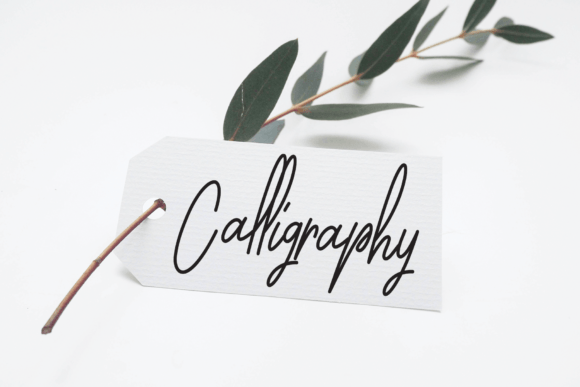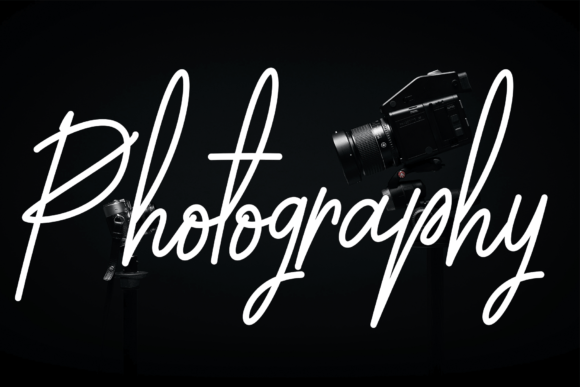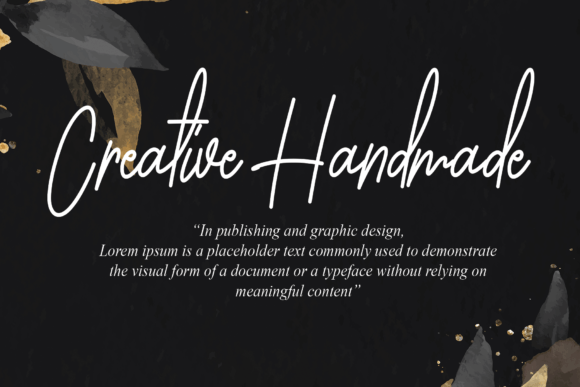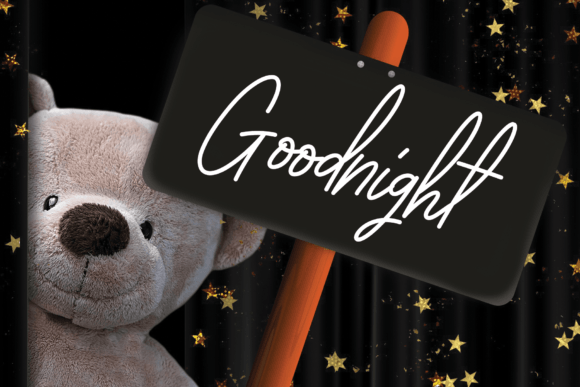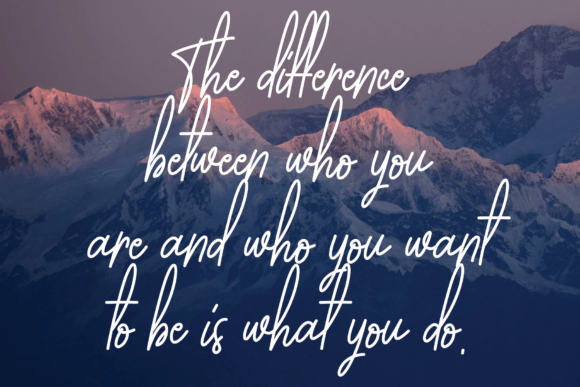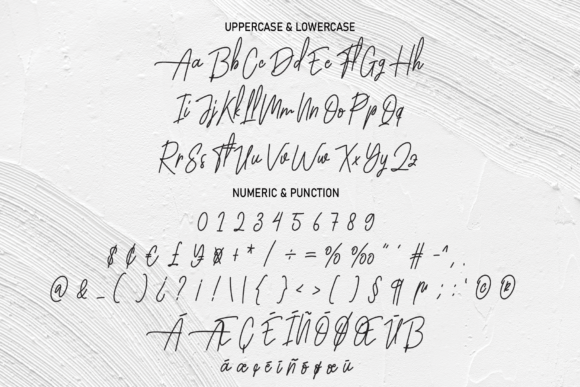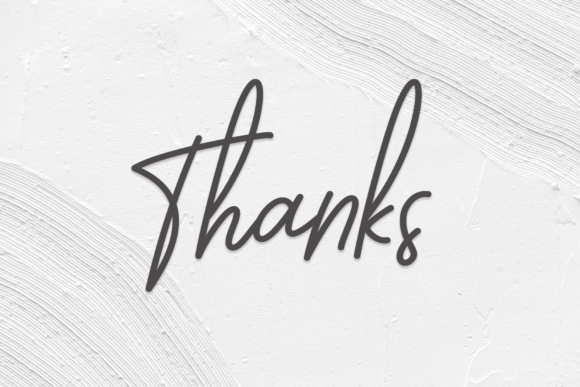
Juneteenth Font
About Juneteenth Font
“Juneteenth” is a truly dazzling script font, meticulously crafted with intricate details that make it stand out in any design project. Its elegance and sophistication make it a valuable addition to your font library, capable of enhancing a wide range of creations, regardless of the topic or context.
What sets “Juneteenth” apart is its exquisite design. Every curve and stroke is carefully crafted, reflecting a high level of attention to detail. Whether you’re designing invitations, branding materials, or digital graphics, this font adds a touch of sophistication and charm to your work. Its flowing script style exudes a sense of creativity and artistry, making it a perfect choice for projects that require a blend of professionalism and beauty.
The versatility of “Juneteenth” is one of its key strengths. It adapts seamlessly to various themes and moods, making it suitable for both formal and informal occasions. Whether you’re working on a corporate presentation or a wedding invitation, this font effortlessly complements the tone of your project. Its legibility ensures clear communication while its stylish appearance elevates the overall visual appeal.
Adding “Juneteenth” to your font library opens up a world of creative possibilities. Its timeless design ensures that your creations remain relevant and visually appealing over time. The font’s ability to evoke emotion and capture attention makes it a powerful tool for designers looking to make a lasting impression. With “Juneteenth,” your designs are not just seen; they are experienced, leaving a memorable impact on your audience.
In conclusion, “Juneteenth” is more than just a font; it’s a statement of elegance and creativity. Its dazzling script style, combined with its attention to detail, makes it a wonderful asset for any designer. Embrace the beauty of “Juneteenth” and let it enhance your creations, transforming them into visually stunning masterpieces. Whether you’re a professional graphic designer or someone exploring the world of design, this font is sure to inspire and elevate your creative projects to new heights.